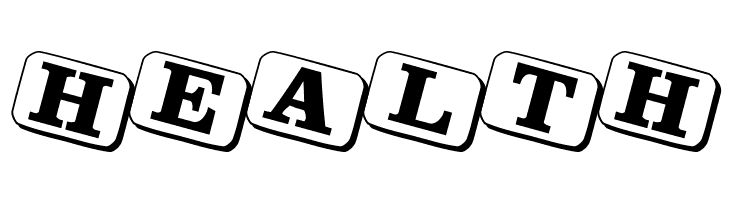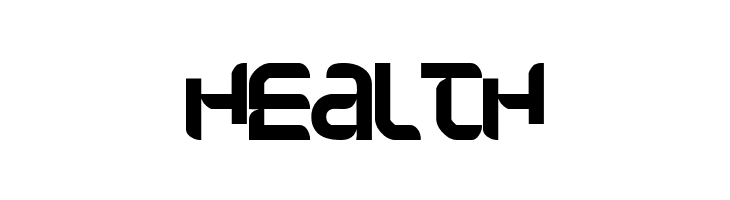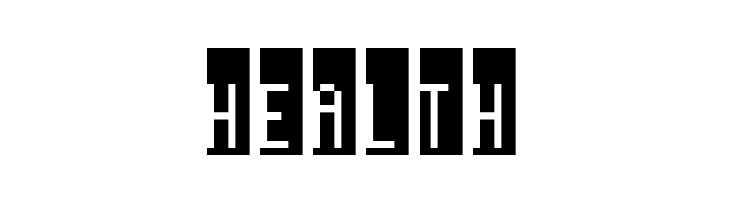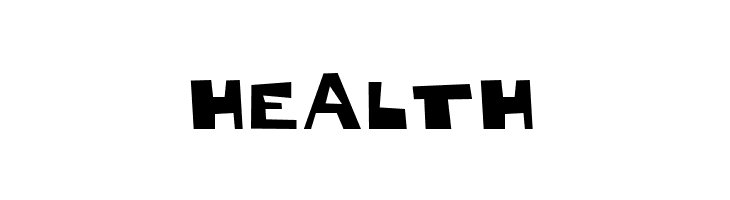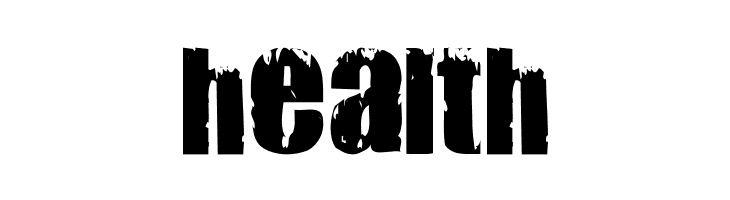
A futuristic, geometric font with rounded edges and a sleek design.
A pixelated, grid-based font with a retro digital aesthetic.
A futuristic, segmented line font with a digital, high-tech appearance.
A bold, geometric outline font with a modern, condensed style.
A geometric, angular font with a modern and vintage blend, featuring bold and structured letterforms.
A classic serif font with bold, elegant characters and balanced proportions.
A bold, playful font with chunky, irregular letters and a retro comic book vibe.
A bold, geometric font with Art Deco influences and high contrast.
A modern, rounded font with a playful and approachable style.
A bold, geometric font with a digital, pixel-like design.
A bold, angular serif font with a modern edge.
A bold, playful font with rounded, chunky characters and a whimsical style.
A decorative font with retro and modern influences, featuring bold geometric shapes and intricate patterns.
A bold, geometric font with a modern and playful style.
A bold, shadowed font with a strong, geometric style.
A bold, decorative font with high contrast and artistic letterforms.
A vintage-inspired font with sharp serifs and art deco elements.
A bold, geometric font with dynamic curves and angles, offering a modern yet retro aesthetic.
A bold, playful font with a 3D shadow effect and cartoonish style.
A bold, geometric font with a strong, blocky appearance.
An elegant and decorative font with intricate curls and flourishes.
A bold, geometric, and playful outlined font.
A bold, nautical-themed font with playful, three-dimensional characters.
A bold, geometric font with Art Deco influences, perfect for stylish and modern designs.
A bold, playful font with a 3D shadow effect and geometric style.
A bold, futuristic font with sharp angles and geometric shapes.
An Art Deco-inspired font with elongated, narrow characters and geometric elements.
A bold, outlined font with a modern and dynamic slant.
A bold, decorative font with a three-dimensional outline and vintage appeal.
A graffiti-inspired font with bold, jagged strokes and an urban, edgy style.
A playful, hand-drawn font with a rough, textured appearance and whimsical style.